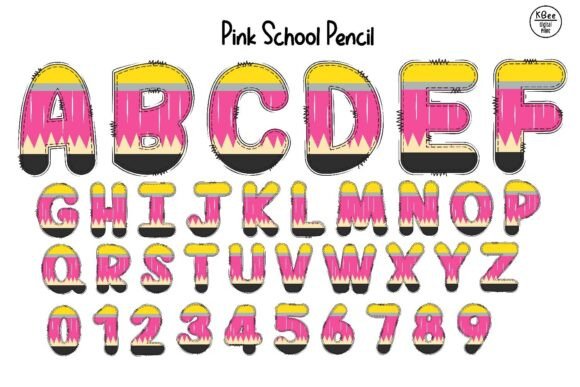
Introduction to School Pencil Font
Who hasn’t doodled in their notebooks as a child, creating whimsical characters and patterns with their trusty pencil? For many designers, this innocent creativity is the spark that ignites their passion for design. If you’re one of those creatives, you’ll love the School Pencil Font – a delightful digital download that’s about to become your new favorite design resource.
This charming hand-drawn alphabet is more than just a pretty face; it’s a versatile tool that can elevate your creative projects with its high-quality, transparent background images. Whether you’re designing greeting cards, invitations, or educational posters, the School Pencil Font is sure to bring a touch of nostalgia and playfulness to your work. And with its compatibility with popular design programs like PhotoShop, Illustrator, and Silhouette, you can use it to create truly unique and eye-catching designs.
Key Features of School Pencil Font
- Unique, hand-drawn design inspired by traditional school pencil markings, perfect for creative projects.
- Perfect for adding a nostalgic and playful touch to your creative project, from children’s book illustrations to educational materials.
Honest Review: School Pencil Font
As a designer, I’m always on the lookout for high-quality design resources that can elevate my creative projects. The School Pencil Font is one such resource that caught my attention.
What works well: ✨ The School Pencil Font is incredibly versatile and can be used in a variety of creative projects, from educational materials to branding and advertising. The font is also free to download, making it a great option for designers on a budget. Additionally, the transparent background allows for seamless integration with other design elements.
What could be improved: ⚠️ While the School Pencil Font is a great resource, it may not be suitable for all types of projects. The font’s playful and whimsical nature may not be the best fit for serious or professional designs. Furthermore, the font’s size and spacing may require some adjustments to achieve the desired look.
Overall impression: The School Pencil Font is a fantastic addition to any designer’s toolkit. Its high-quality design and versatility make it a great resource for creative projects. With a little tweaking, this font can add a unique touch to any design.
- Playful and whimsical nature
- May require adjustments for size and spacing
School Pencil Font is commonly used for educational projects, such as creating engaging lesson plans, designing classroom materials, and developing educational graphics. It’s also great for personal projects, like creating invitations, party decorations, or other crafty endeavors. With its fun, playful feel, School Pencil Font is a free download that’s perfect for any creative project.